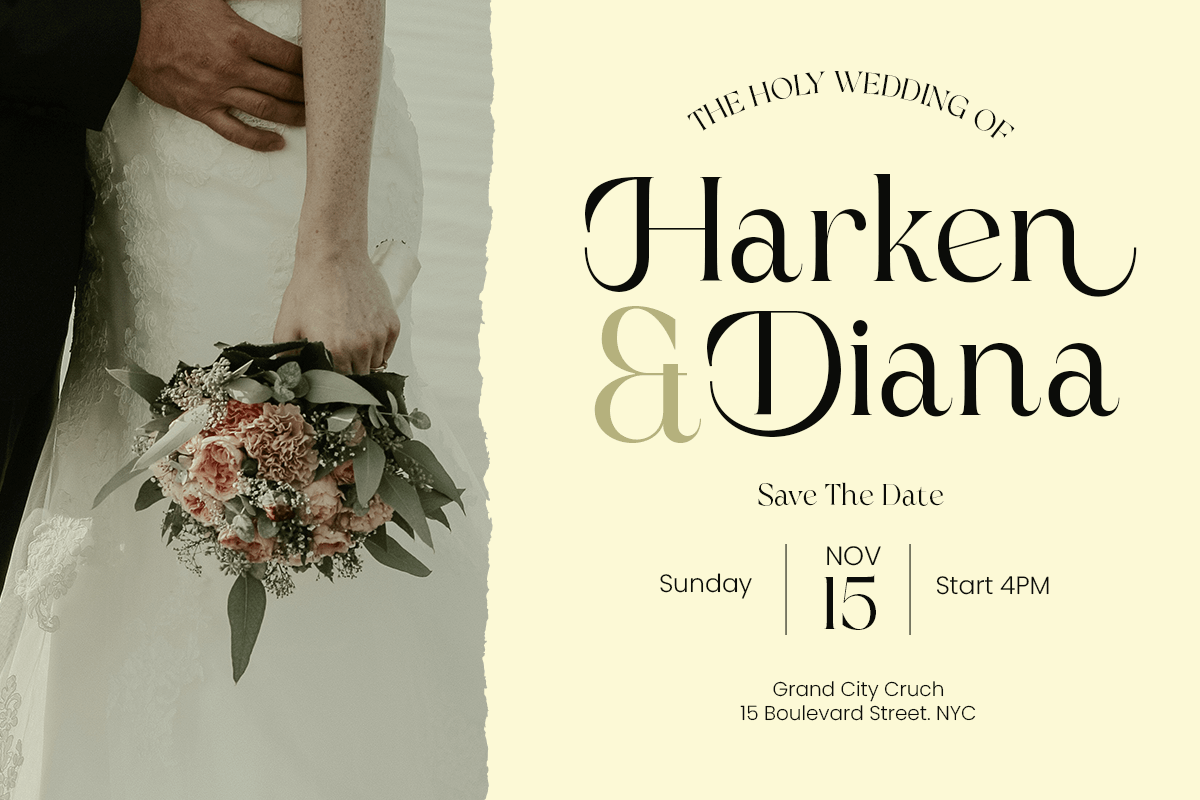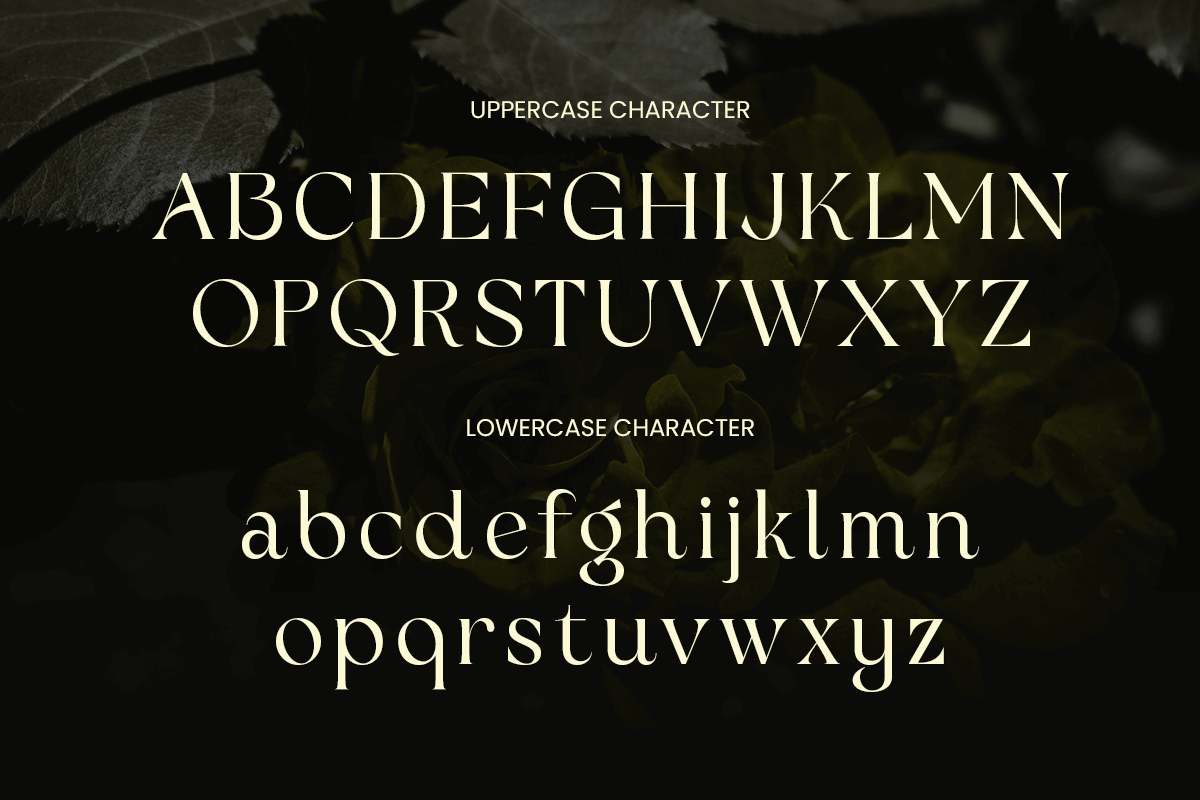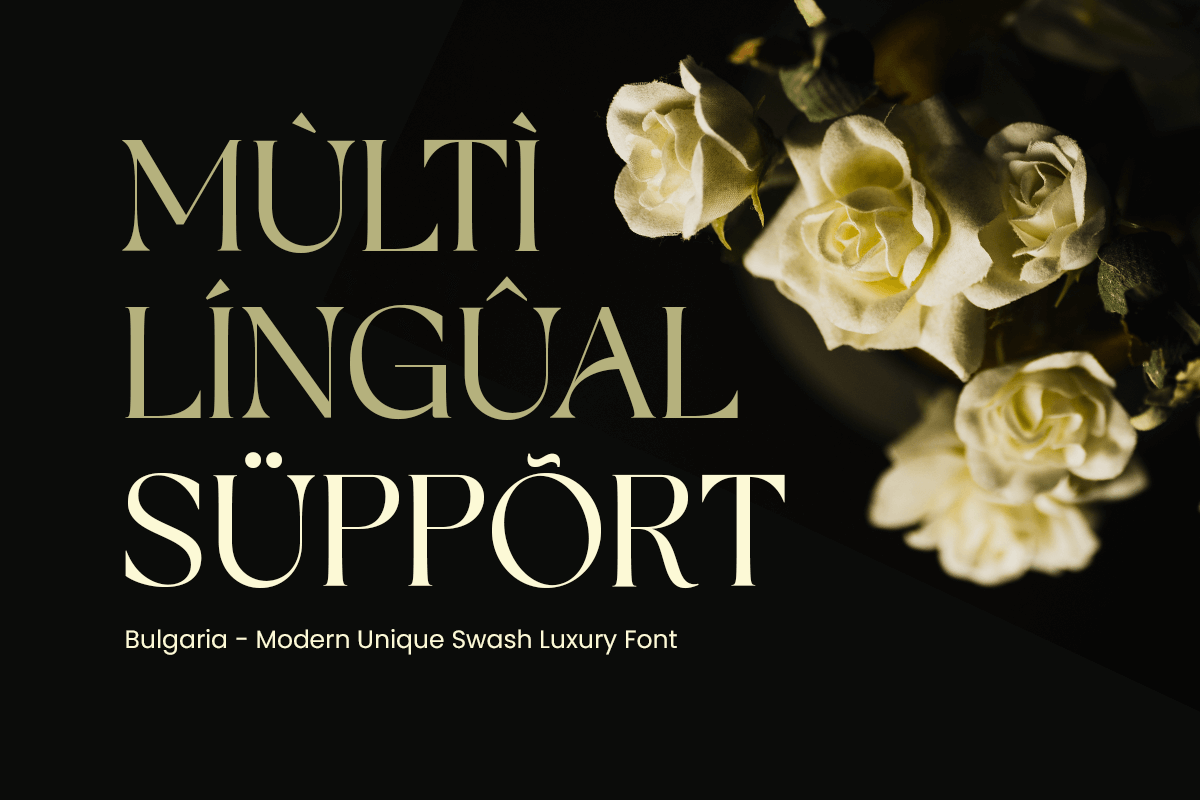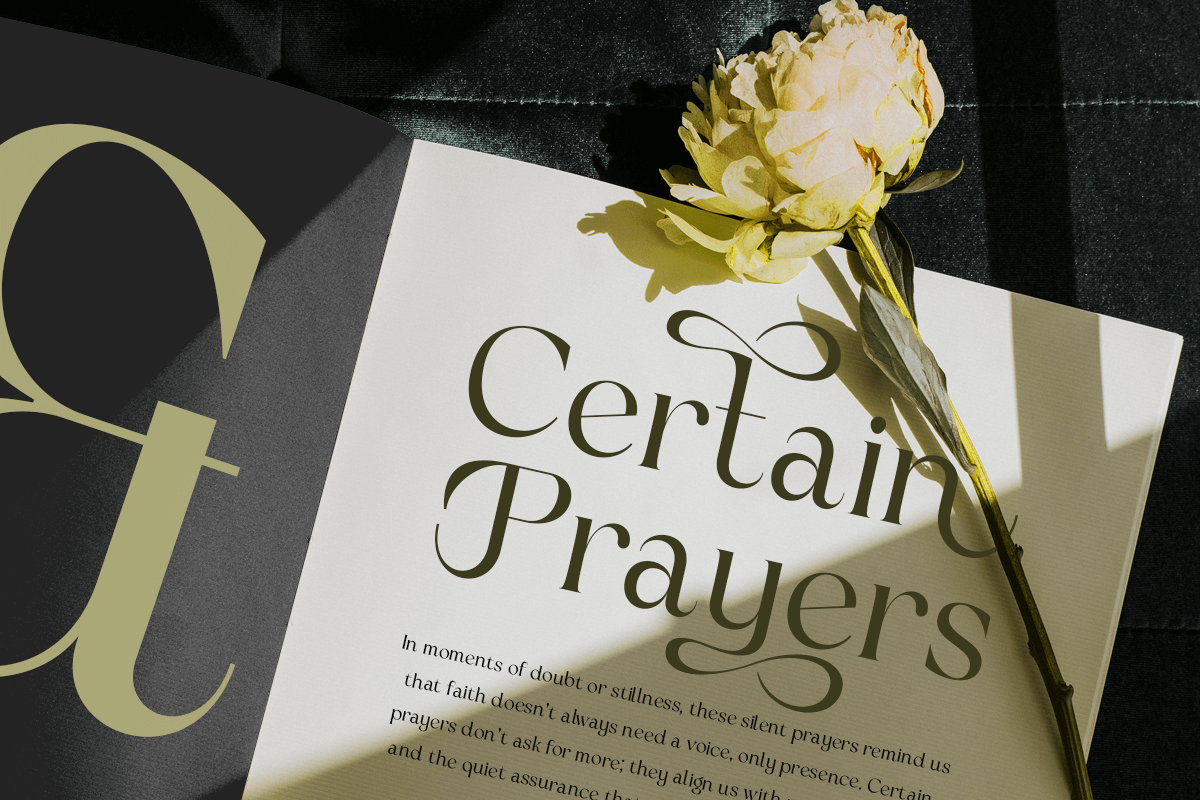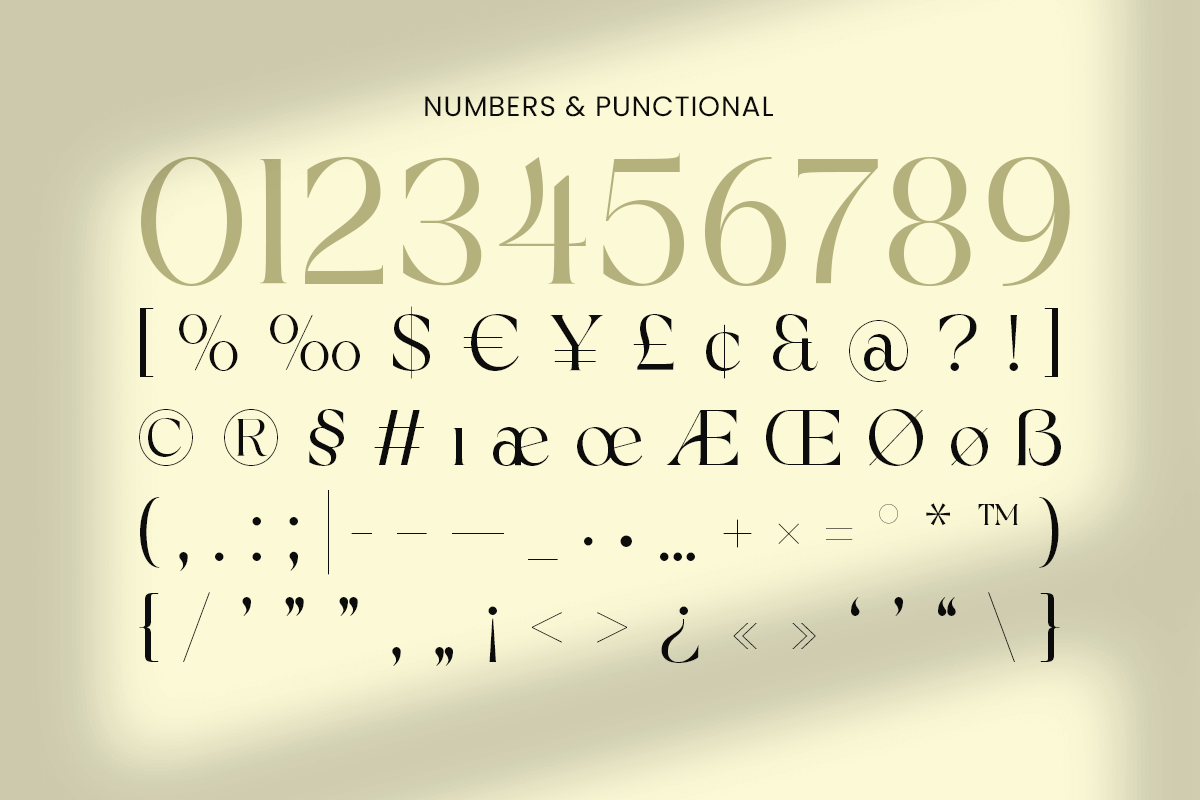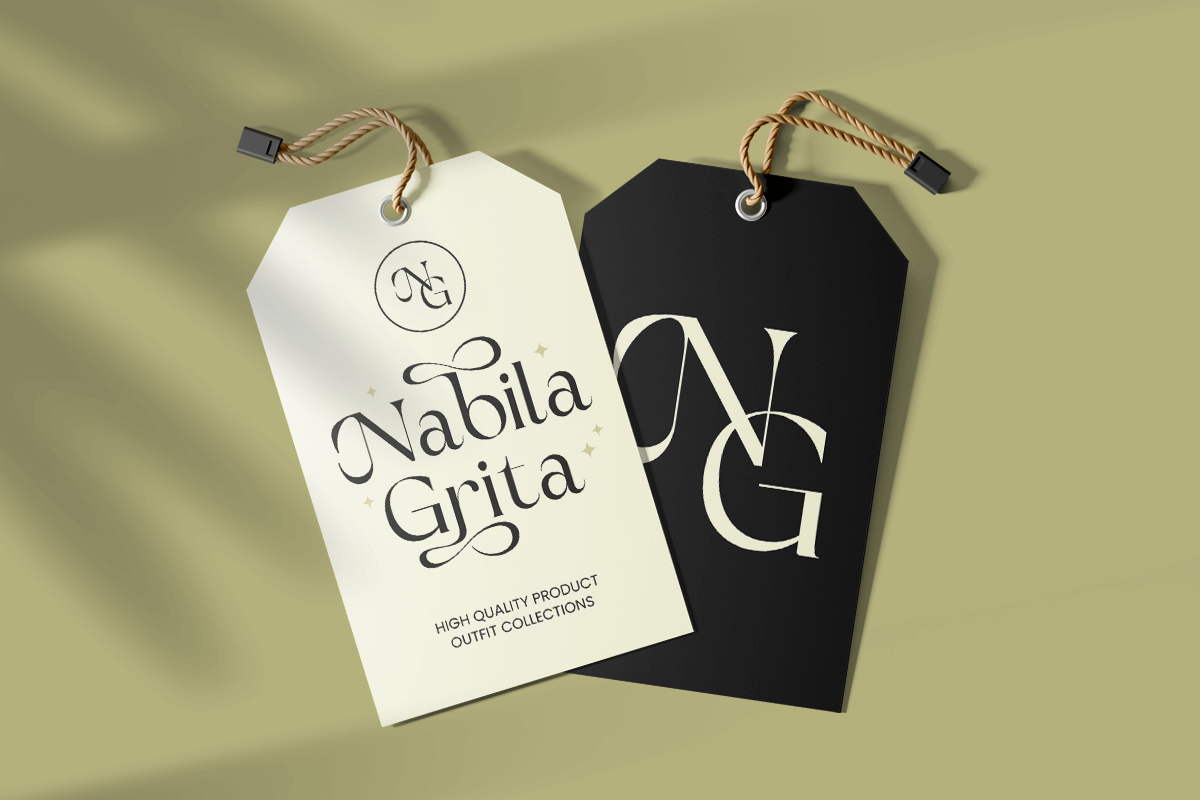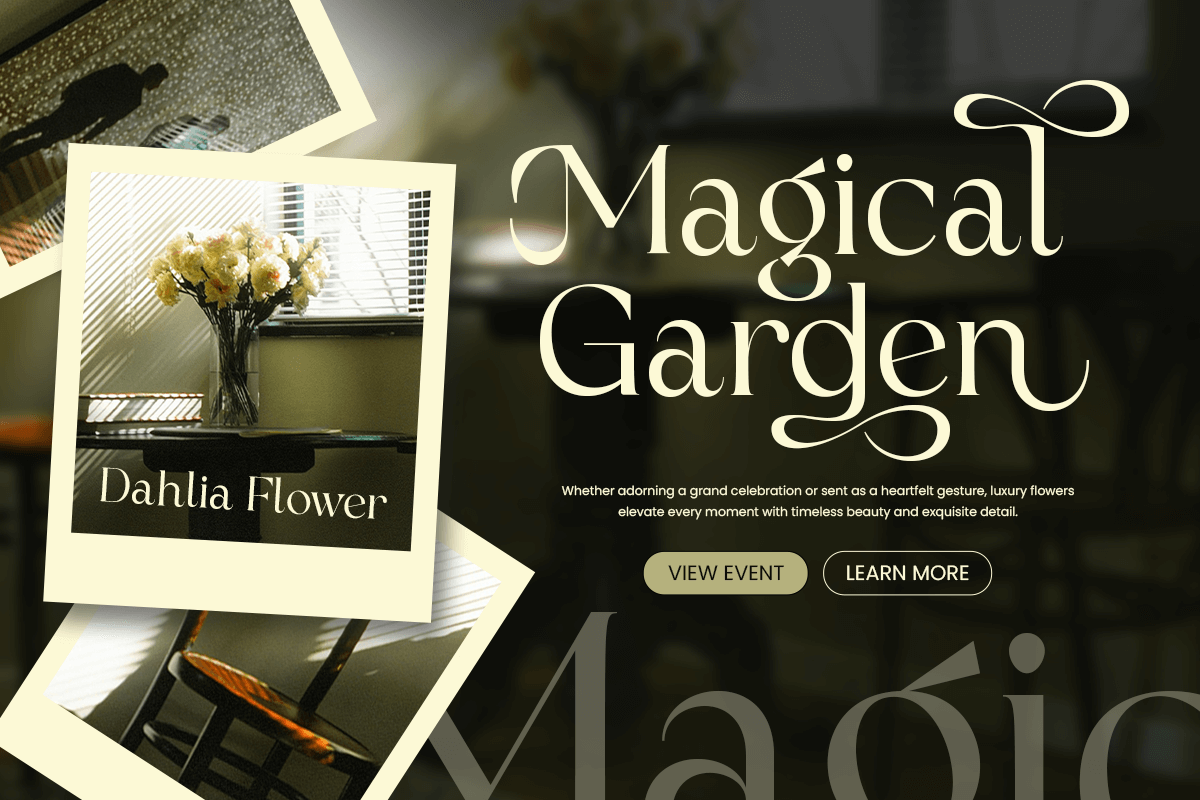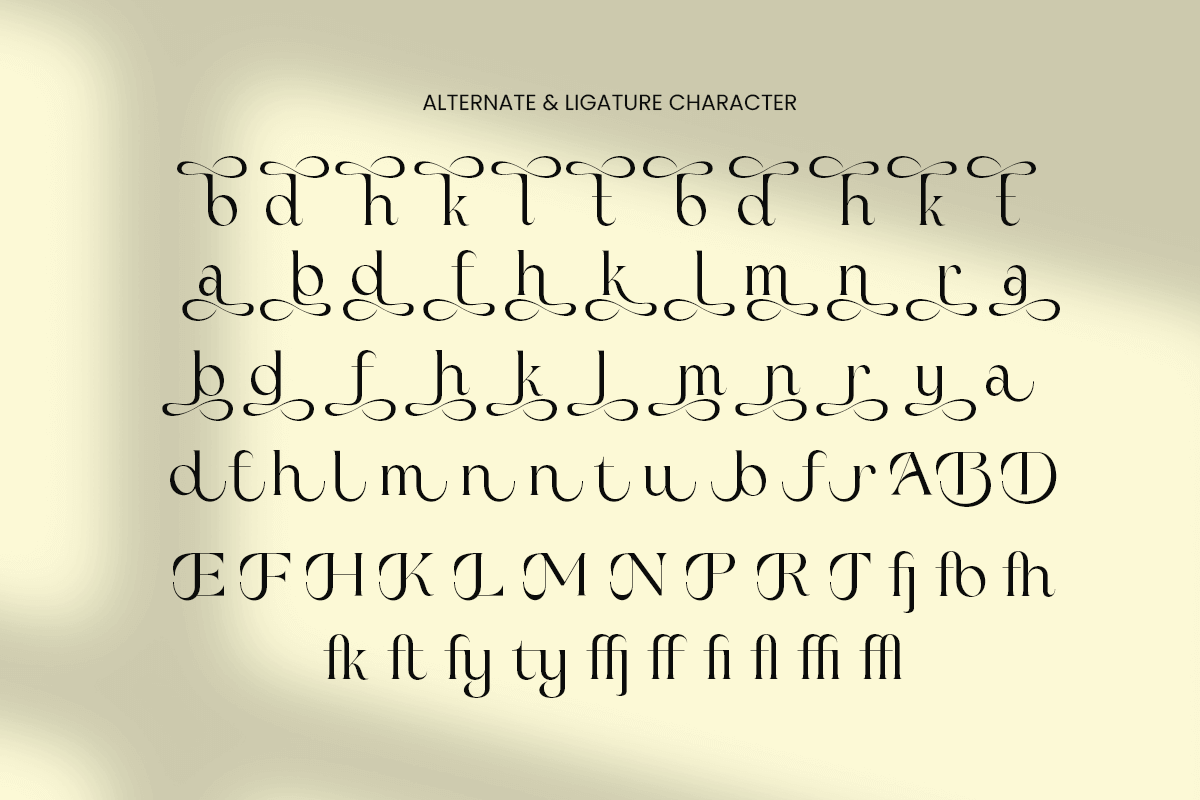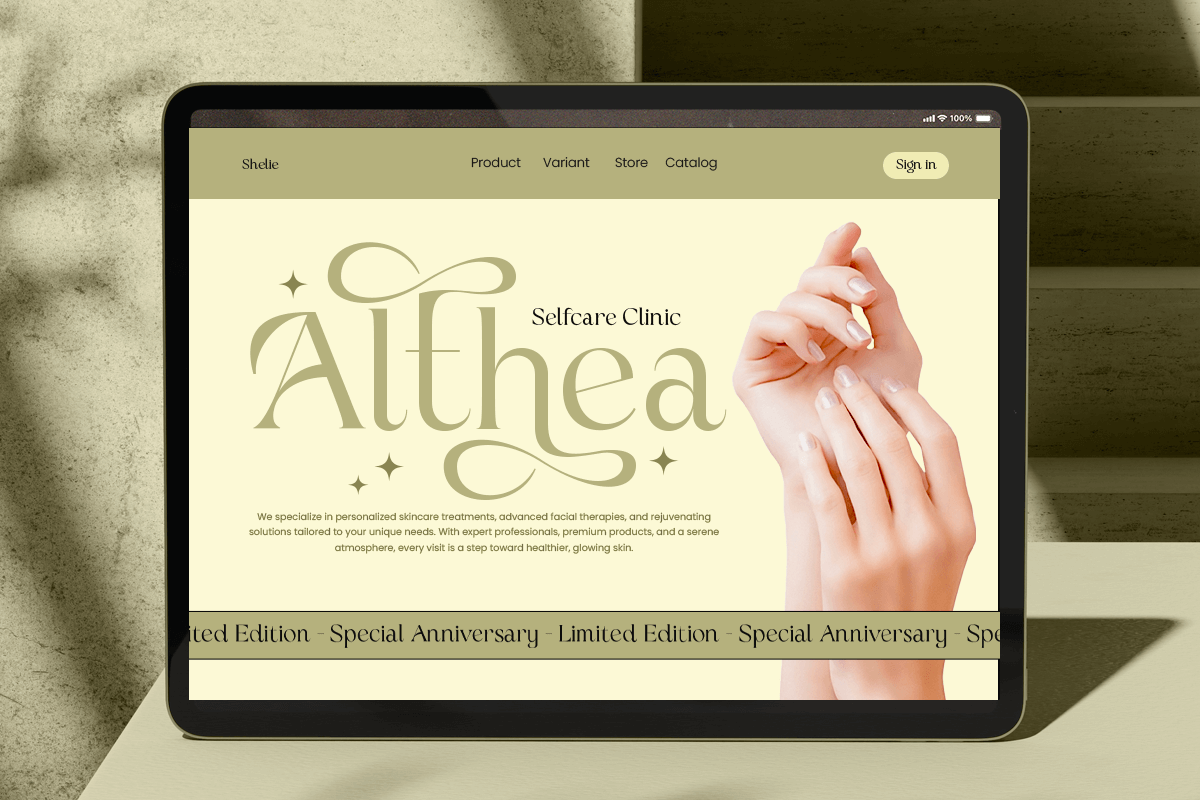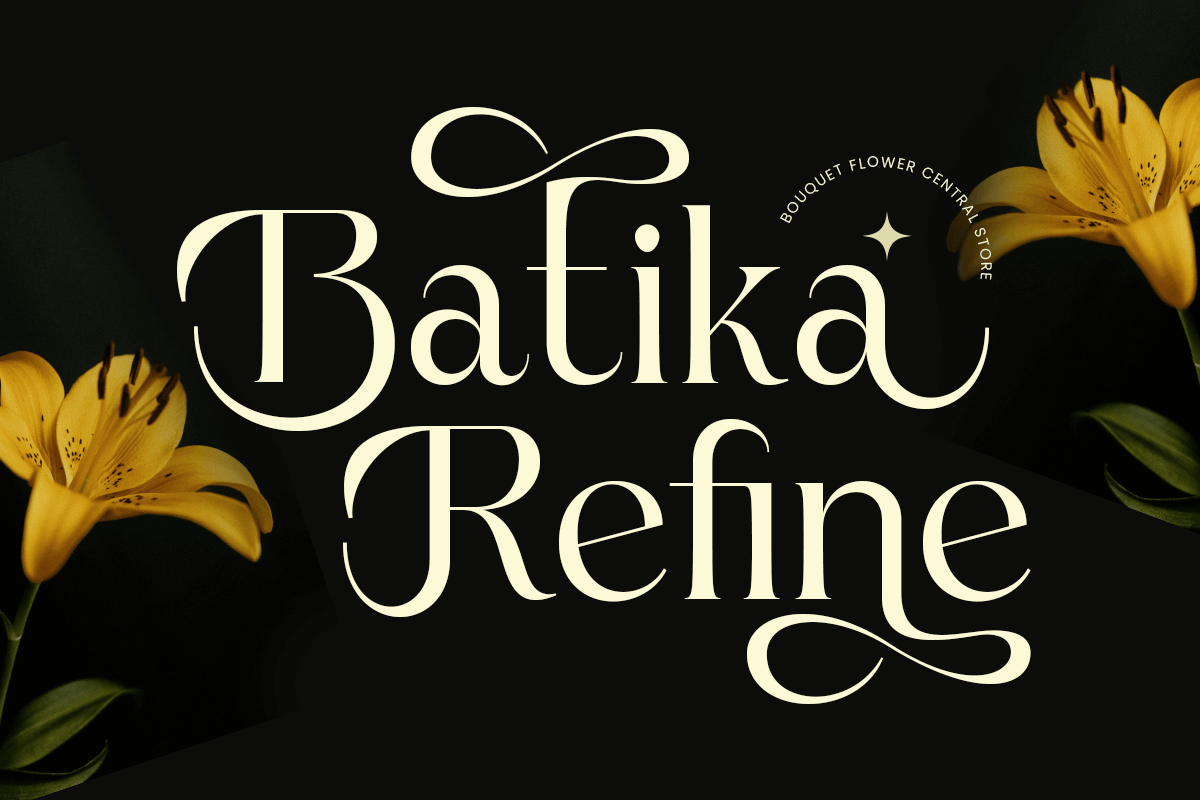
Bulgaria Modern Unique Swash Luxury
Bulgaria is a modern unique swash luxury font designed to deliver refined elegance with a dramatic, high-end signature. Featuring stylish swash details and a polished luxury feel, this typeface creates a premium tone that looks sophisticated, fashionable, and effortlessly upscale.
Perfect for luxury logos, boutique branding, wedding stationery, beauty packaging, fashion editorials, and premium product labels, Bulgaria adds a graceful flourish to every word. Use it for brand identities, invitations, headlines, signage, social media campaigns, and print layouts that demand an elegant statement.
Whether you’re crafting a couture logotype, a high-end cosmetic label, or a romantic wedding concept, Bulgaria brings modern luxury aesthetics with swash-driven personality—helping your design feel exclusive and unforgettable.
Bulgaria – Luxury Swash Font Features
Modern luxury letterforms with elegant swash accents
Ideal for premium logos, branding, and boutique identity
Perfect for wedding invitations, beauty packaging, and fashion design
High-end look for editorials, headlines, and signage
Includes uppercase, lowercase, numerals, and punctuation
Clean readability with stylish, signature-like flair
OpenType features for refined typographic control
Elevate your premium identity with Bulgaria—crafted for modern luxury swashes and signature elegance. ✨